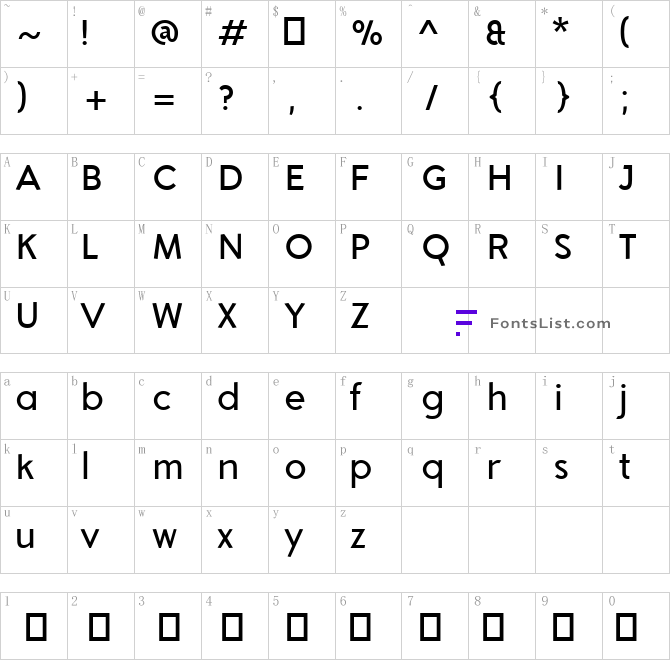
- Font Name:Aron Grotesque
Aron-Grotesque-Regular.ttf is a very beautiful artistic font, Aron-Grotesque-Regular.ttf is widely used in the design and printing of various books and pictures,Aron-Grotesque-Regular.ttf has a strong visual impact,Aron-Grotesque-Regular.ttf is a commonly used font in newspapers, magazines and books, and is used in posters, e-commerce Poster design, store design, logo design, font design and other fields.Aron-Grotesque-Regular.